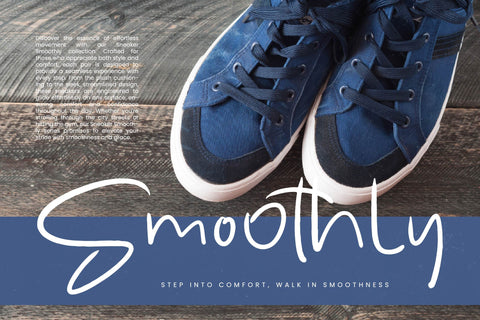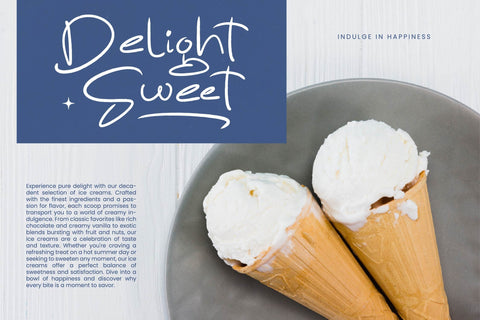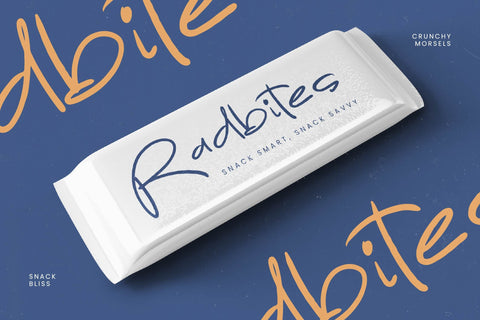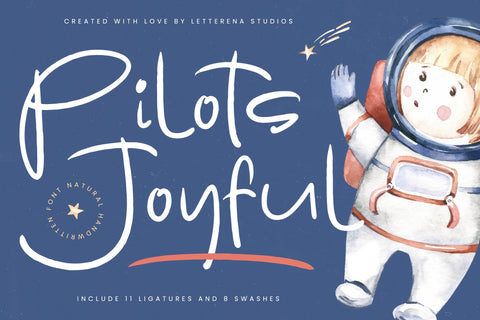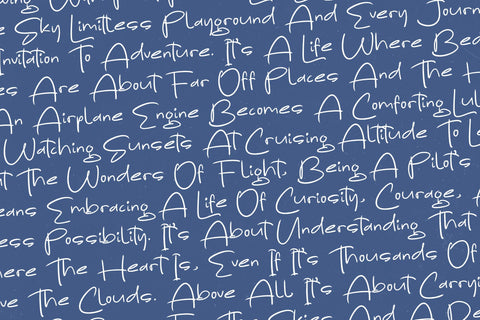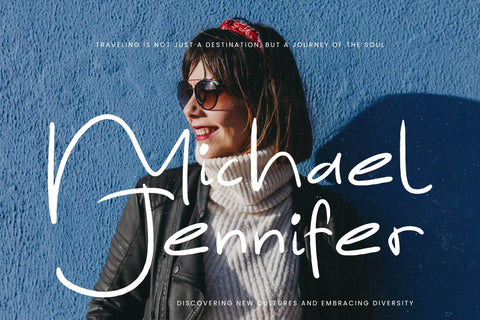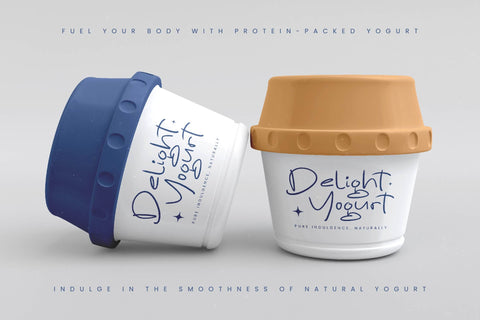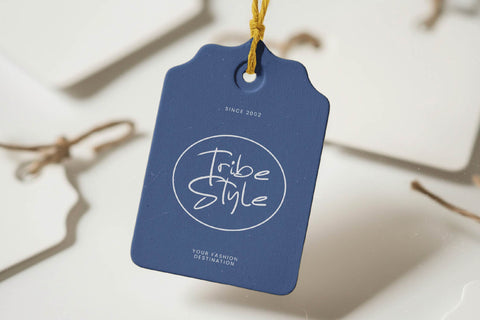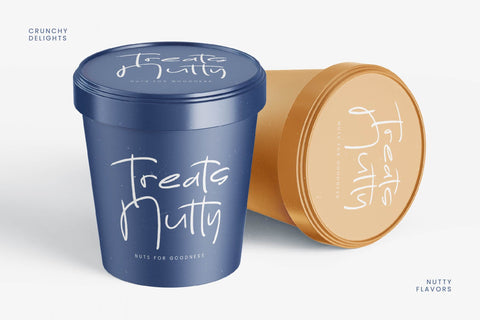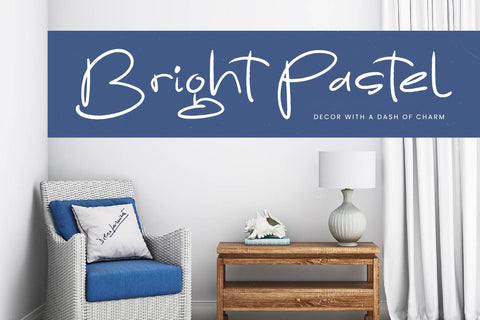
Pilots Joyful - Natural Handwritten Font
Pilots Joyful - Natural Handwritten Font , from Letterena, is a Luxury Script font, suitable for any projects such as: logos, branding projects, homeware designs, product packaging, mugs, quotes, posters, shopping bags, t-shirts, book covers, name card, invitation cards, greeting cards, label, photography, watermark, special events, and all your other luxury and beautiful projects that need a Luxury Script taste.